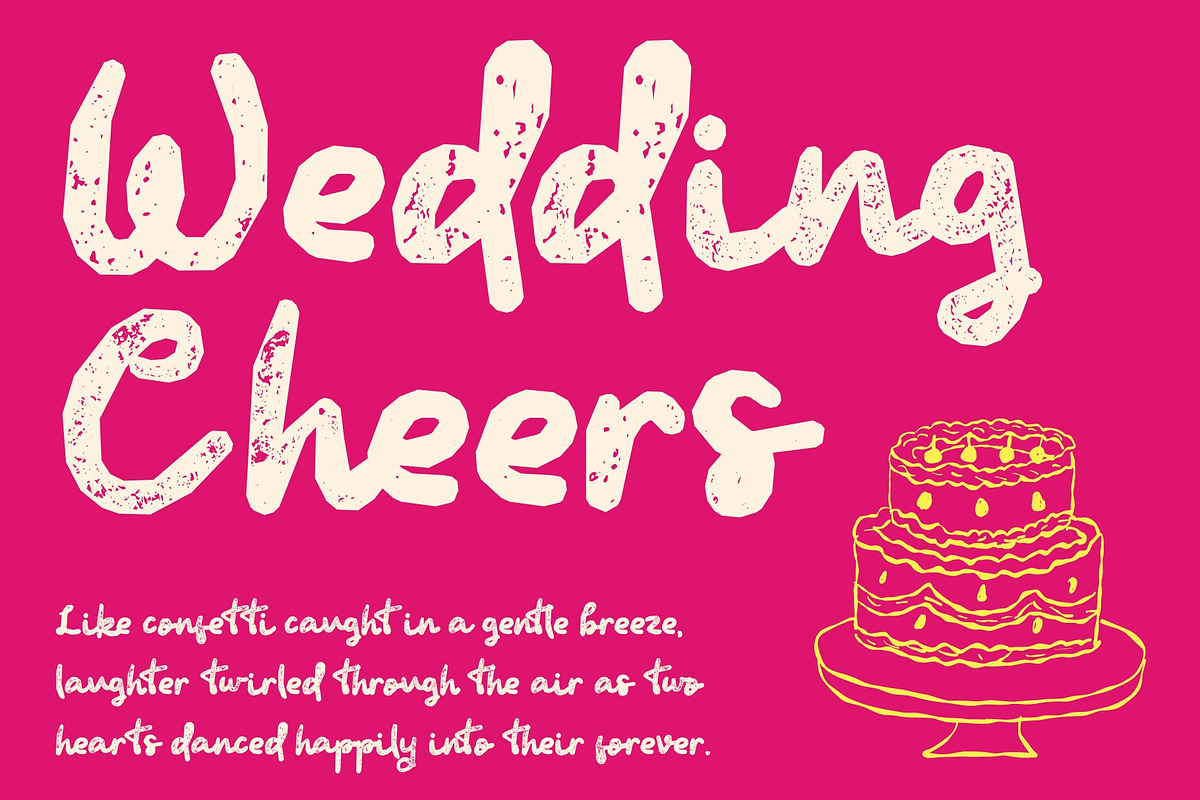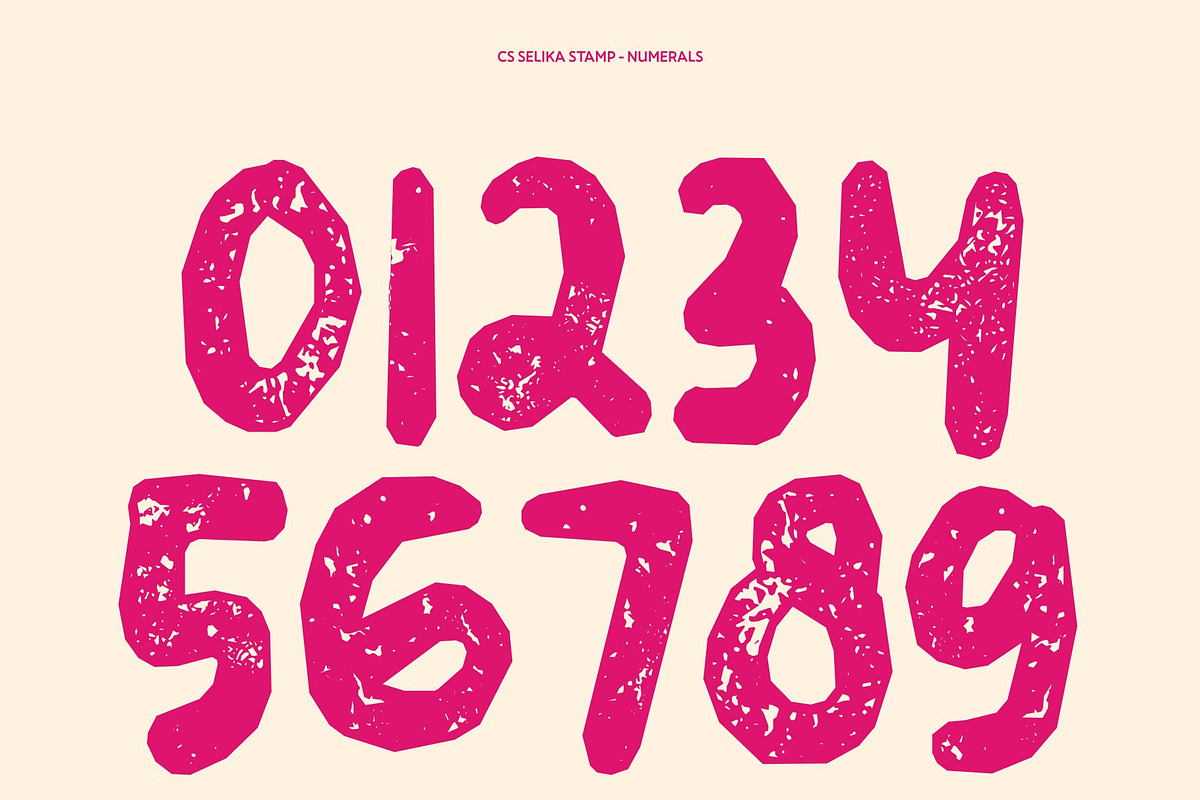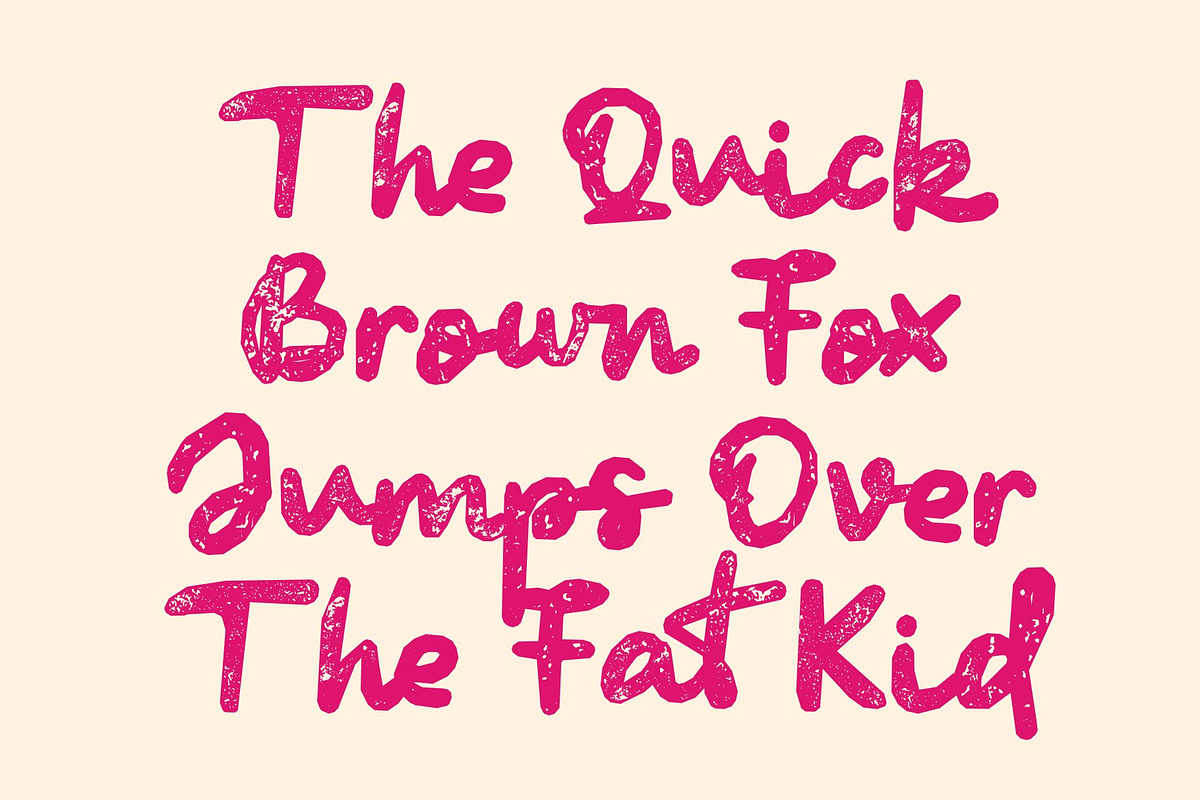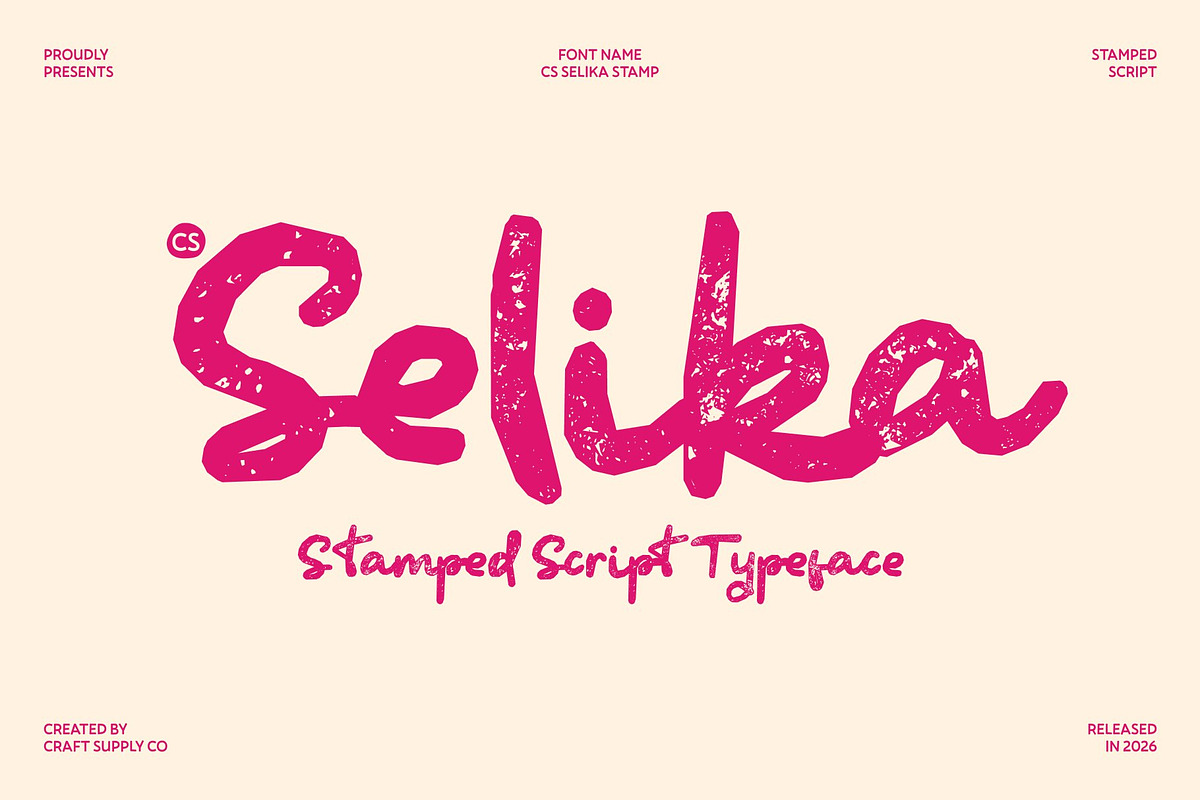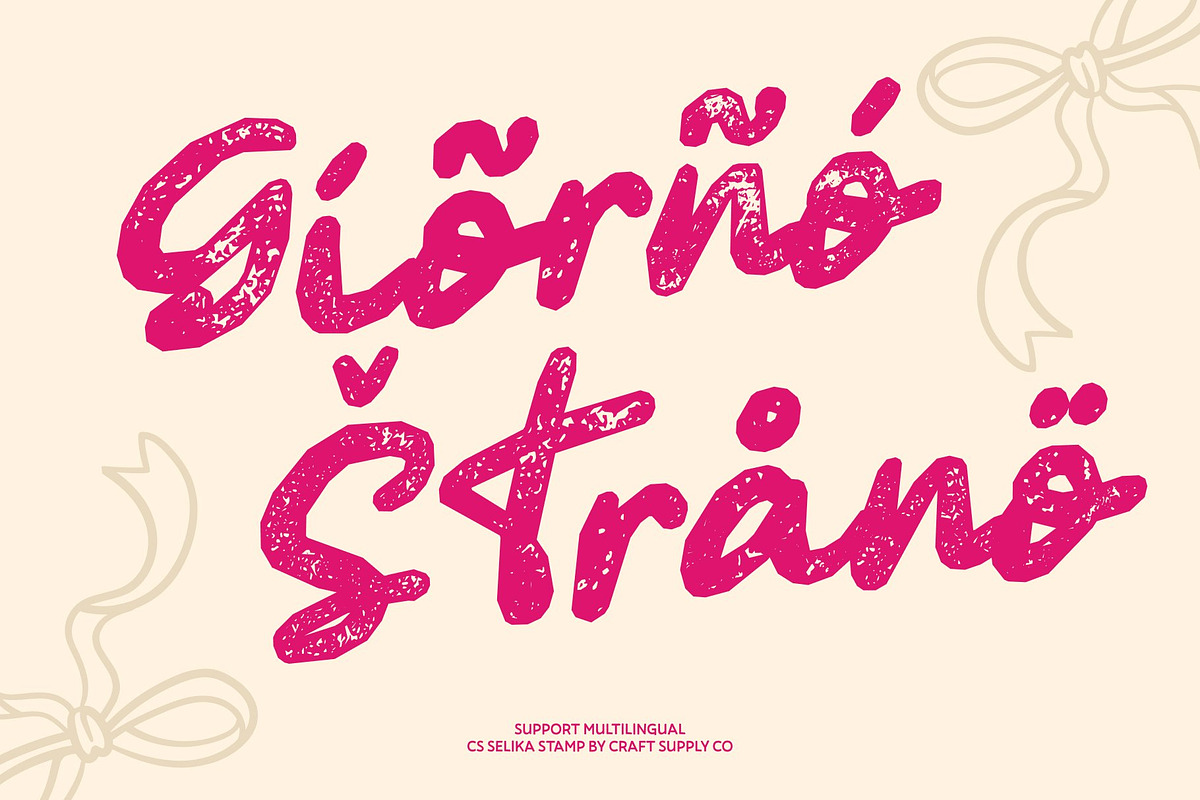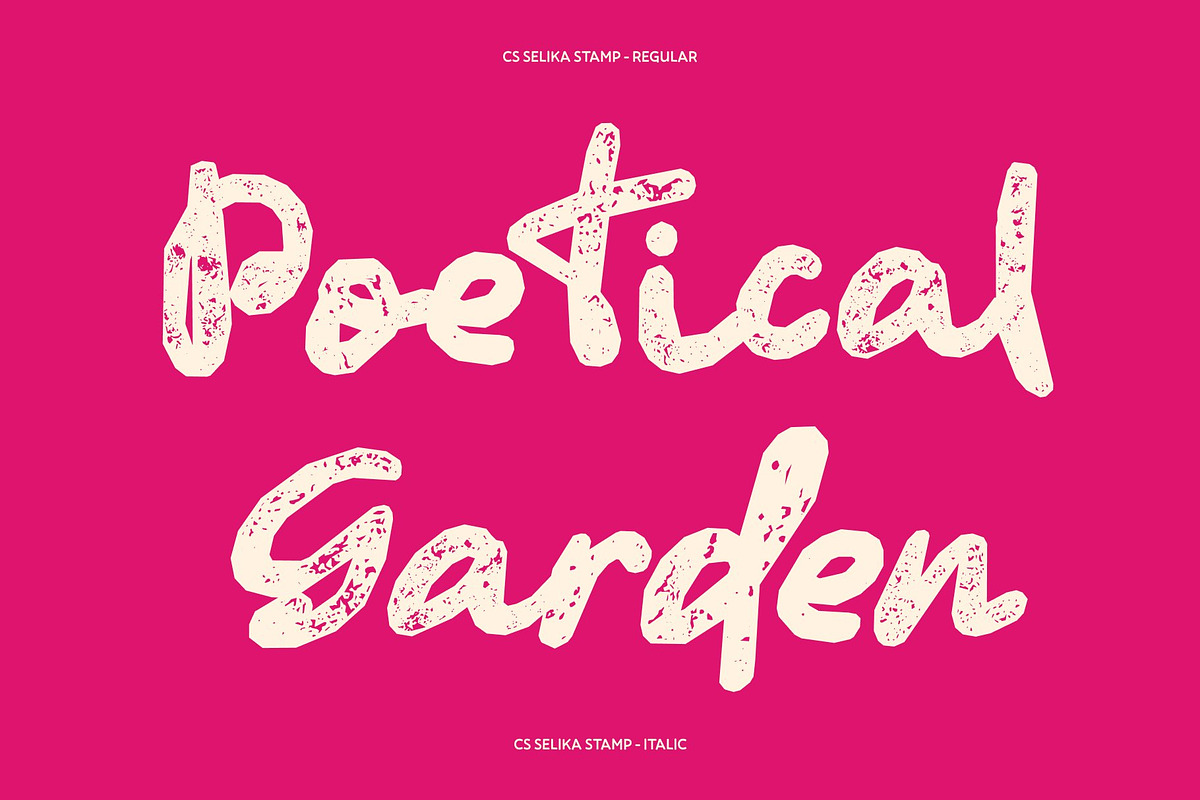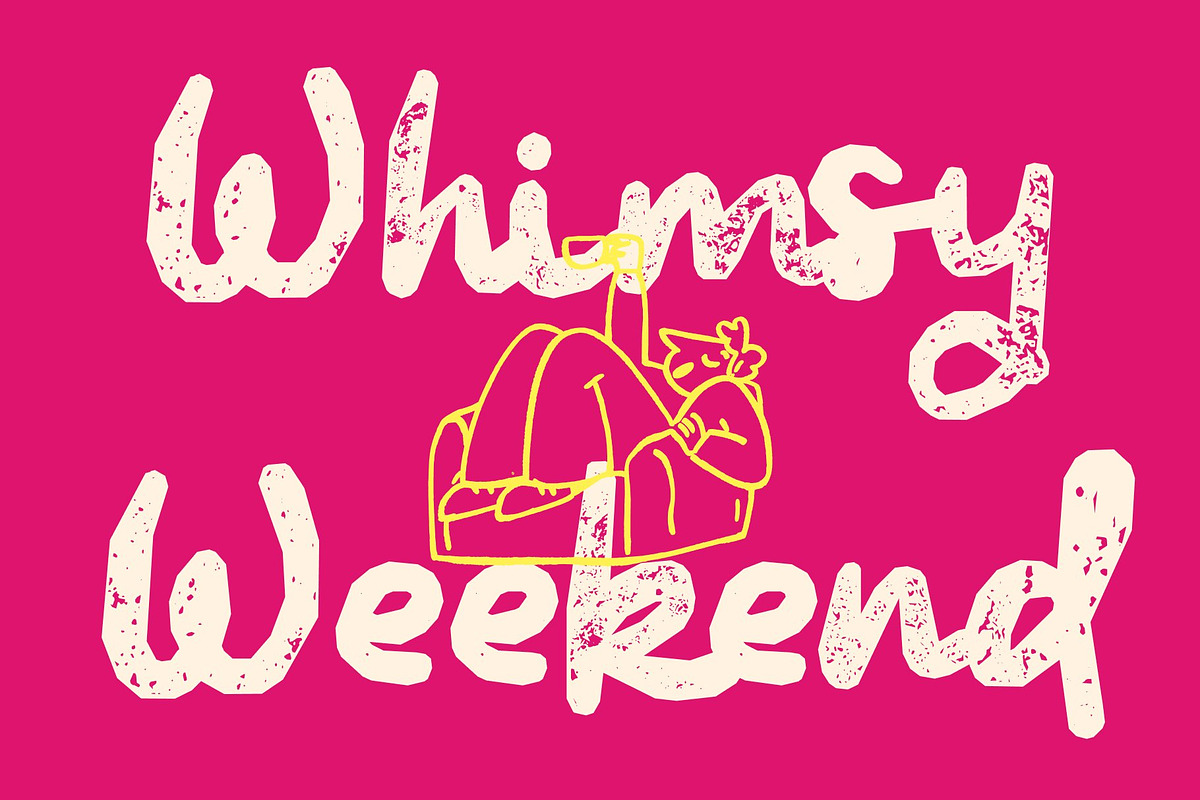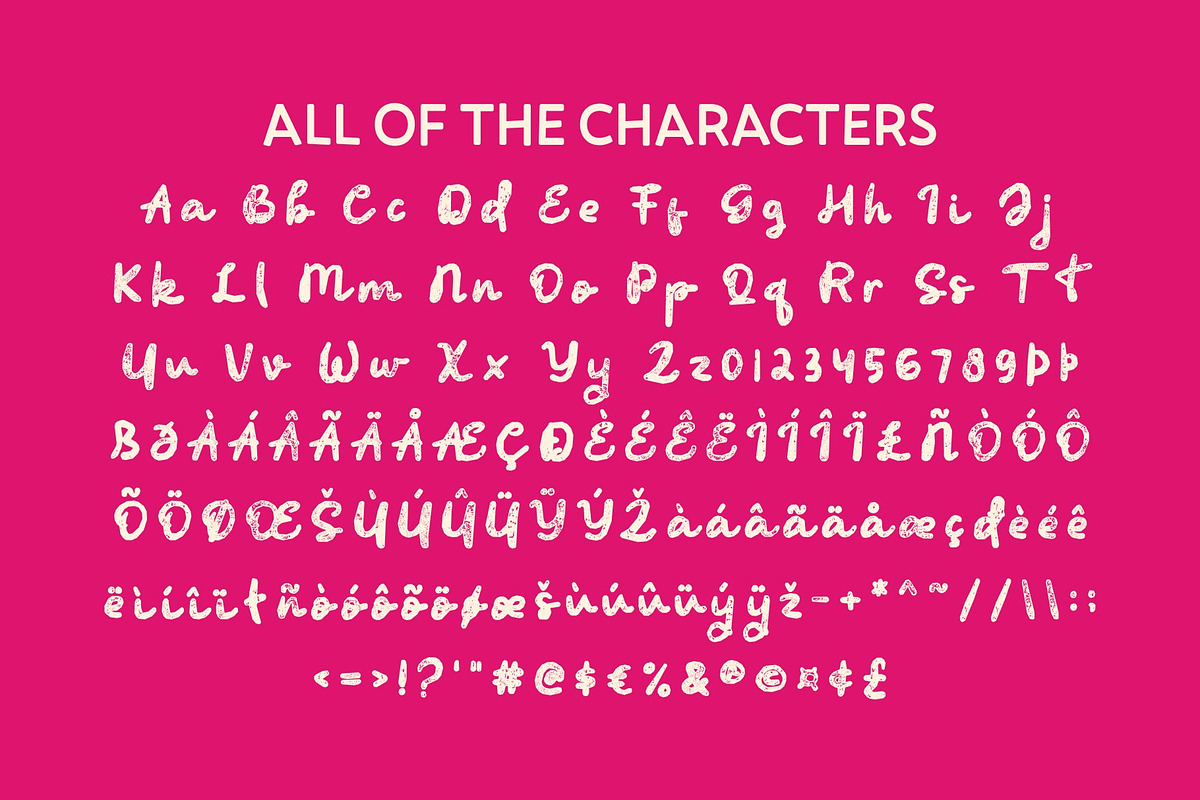
CS Selika Stamp
Expressing grace, refinement, and effortless elegance, CS Selika Stamp is a handwritten script font designed to elevate your creative projects with a polished yet natural appearance. Its smooth flow and carefully balanced letterforms create a sophisticated mood that feels wonderfully timeless. Inspired by refined handwriting, this distinctive typeface delivers a classic script style that enhances any design with exceptional beauty and clarity.
Drawing inspiration from traditional printing methods, this smooth flow and casual rhythm incorporate a realistic stamp effect that gives the font unique vintage characters, an artistic texture, and a charming old design. Each intentional flourish enhances the natural movement of the script, achieving a tactile visual depth that feels both personal and remarkably authentic on paper or digital screens.
This warm and inviting design is exceptionally well-suited for elegant and romantic projects, bespoke wedding invitations, artisanal branding, fashion logos, and bohemian editorial layouts. Its expressive letterforms and distressed surface demand a soulful, human touch, offering a versatile tool that communicates creativity, joy, and a refined lifestyle.
Bring distinctive texture to your next creative venture by letting these undulating glyphs guide your visual narrative. Whether you are building an independent lifestyle brand or designing memorable event graphics, CS Selika Stamp delivers an effortless blend of historic storytelling and contemporary appeal that leaves a lasting impression on every application.
CS Selika Stamp Regular
CS Selika Stamp Italic